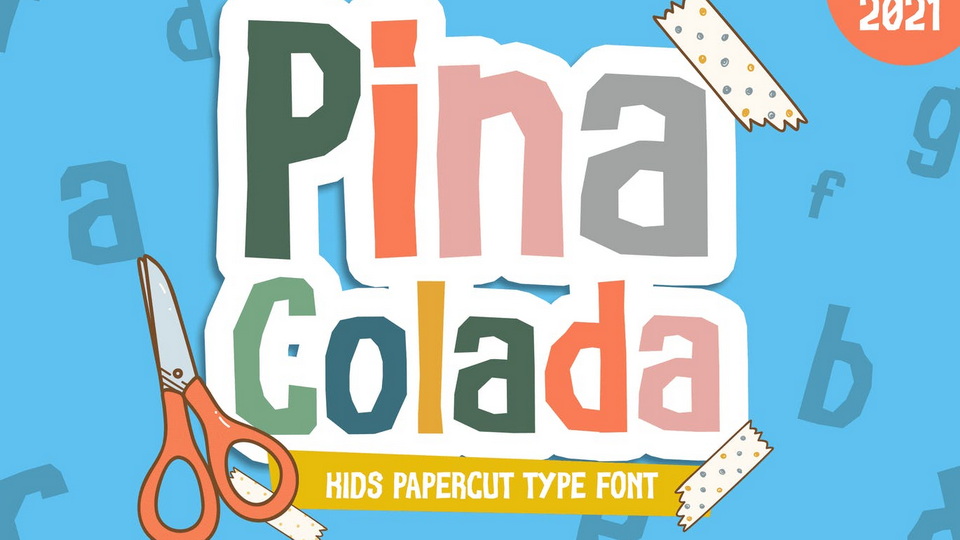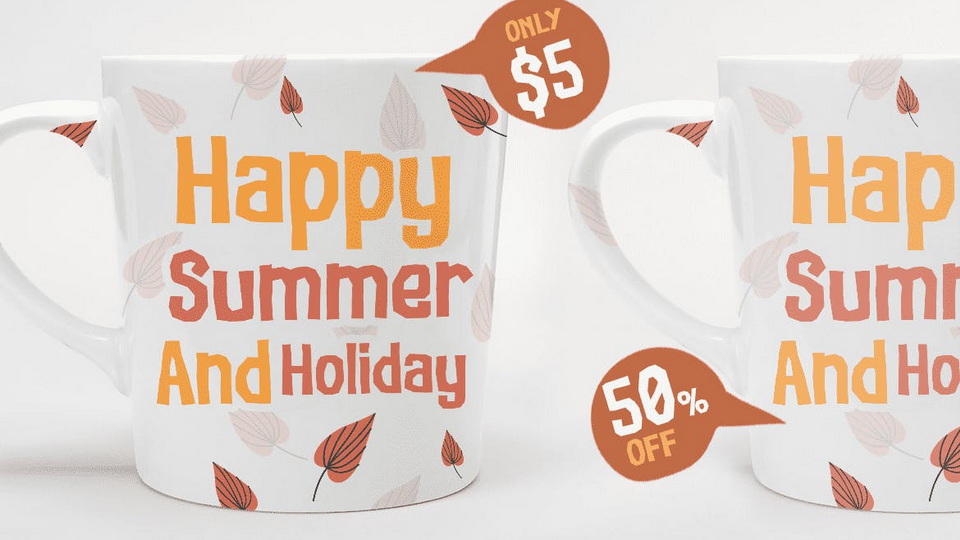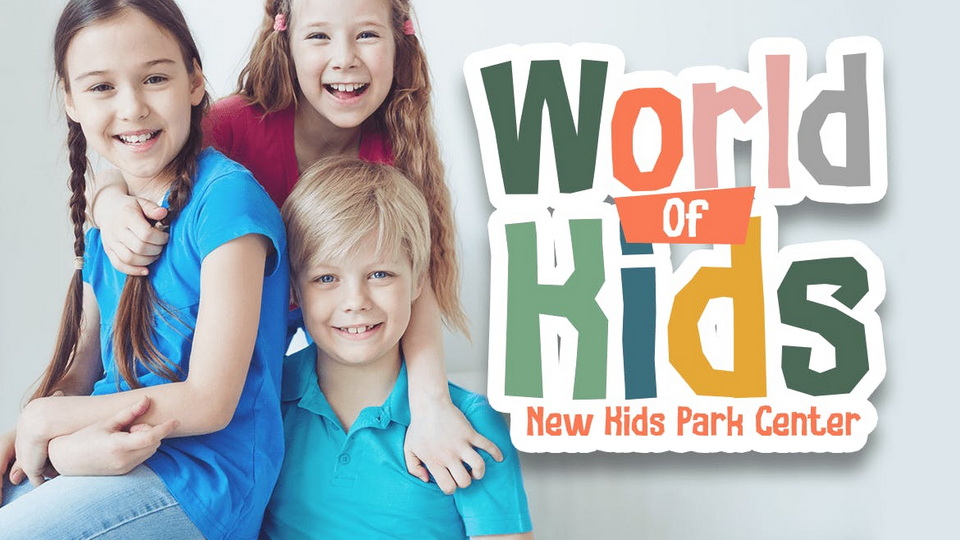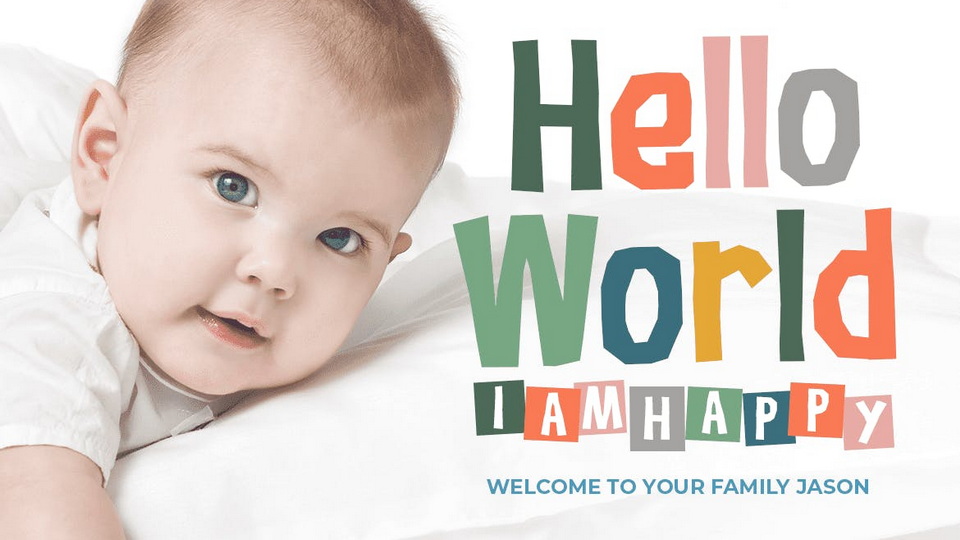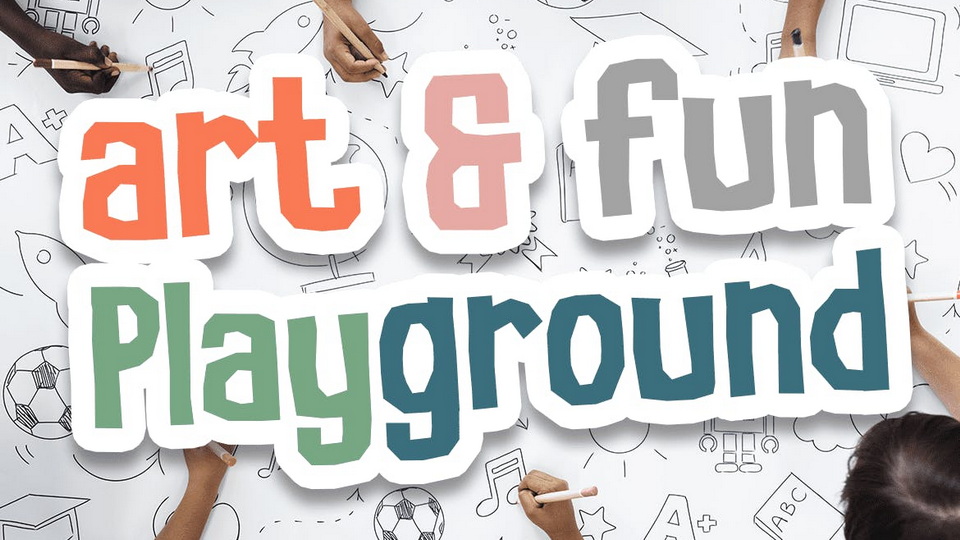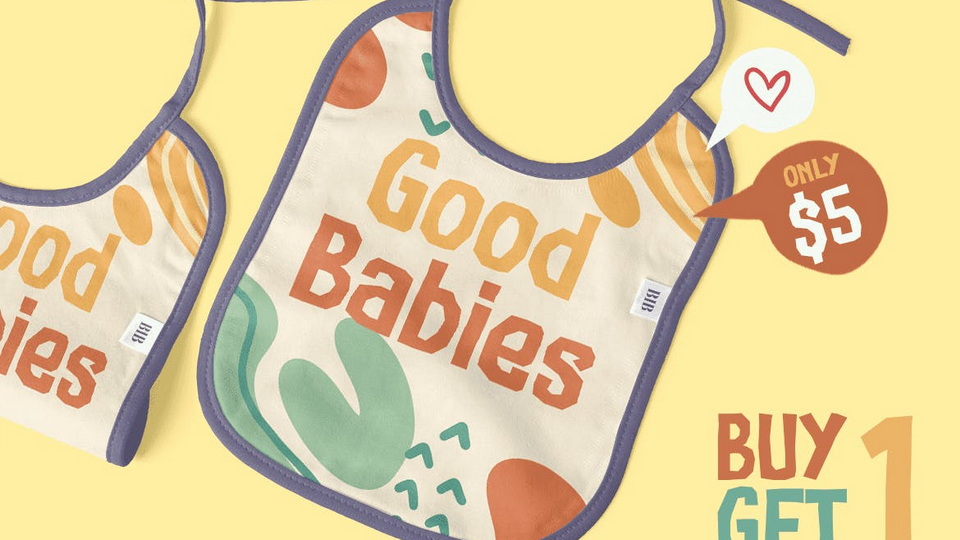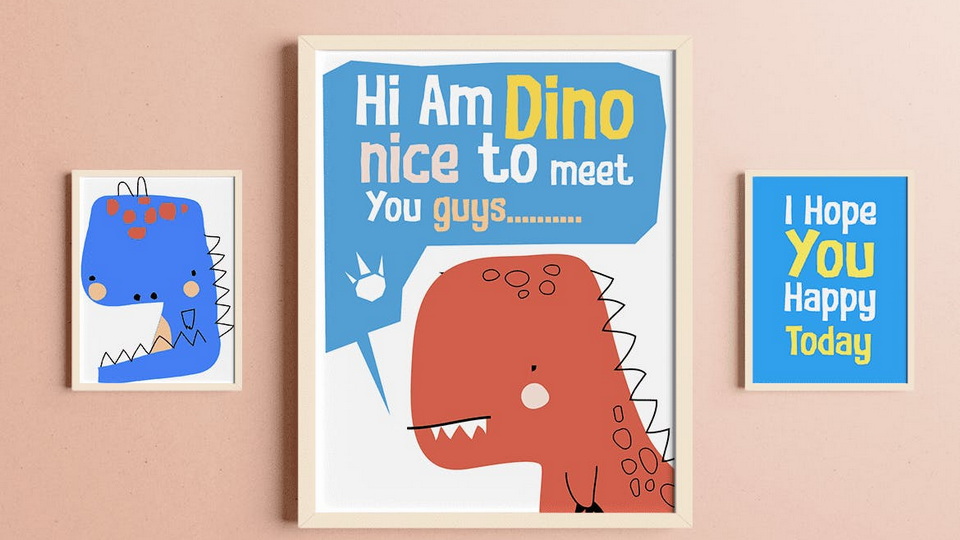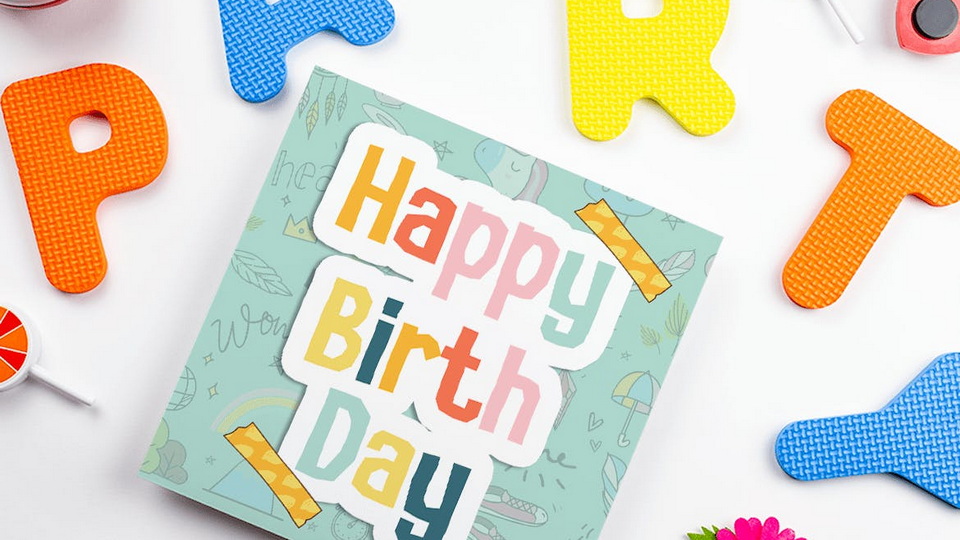
Pina Colada – Kids Font
It looks like from a fresh cut of paper and ready to be put and arranged as a fun project for kids.
Suit perfectly for children books market, online games, stationary, school supplies font, poster, movie title, youtube covers, youtube thumbnails, social media page covers and so on…